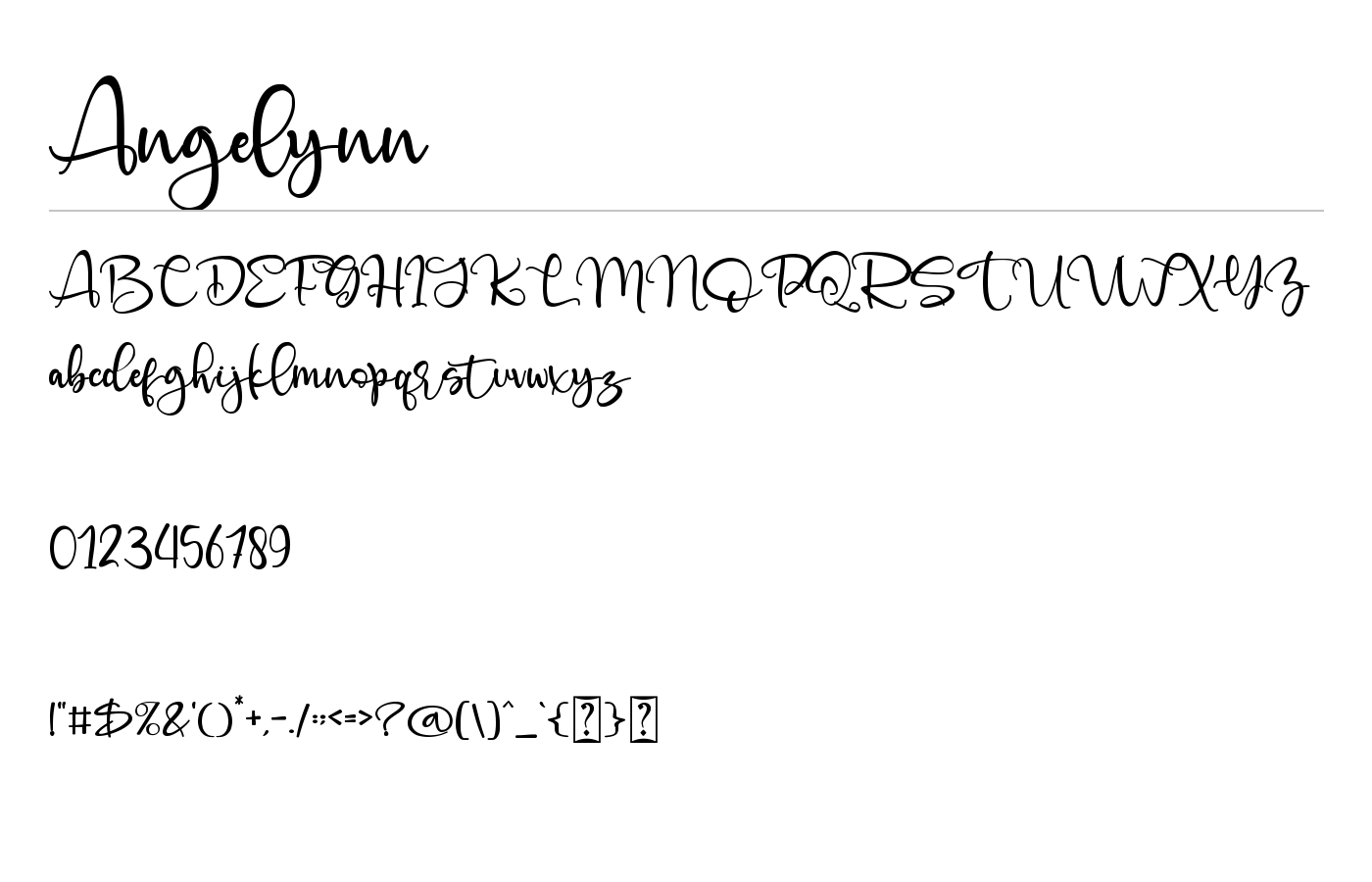
Angelynn is an elegant handwritten script font featuring smooth, flowing strokes with a playful and feminine touch. Its light weight and graceful letterforms make it ideal for personal branding, invitations, and creative projects that require a warm, approachable feel. This font works wonderfully in logos, greeting cards, and stylish editorial designs where a delicate, charming aesthetic is desired.
Angelynn Font
About Angelynn Font
| Font family | Angelynn Font |
| Designer | Letterara |